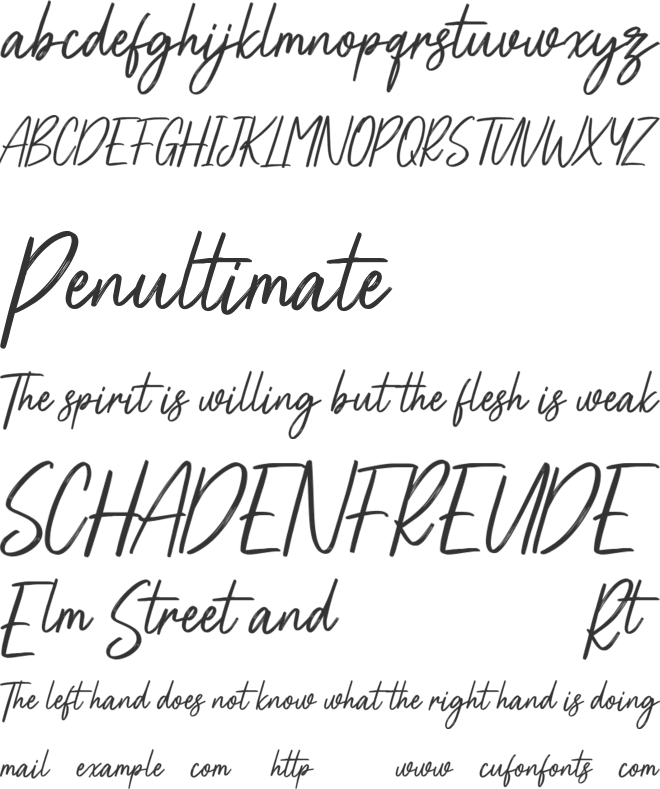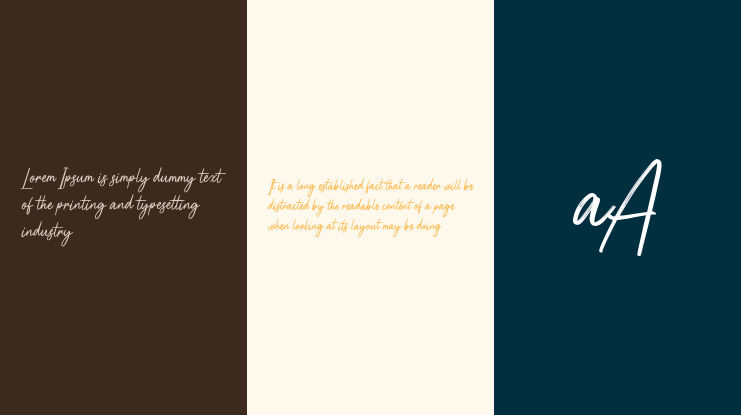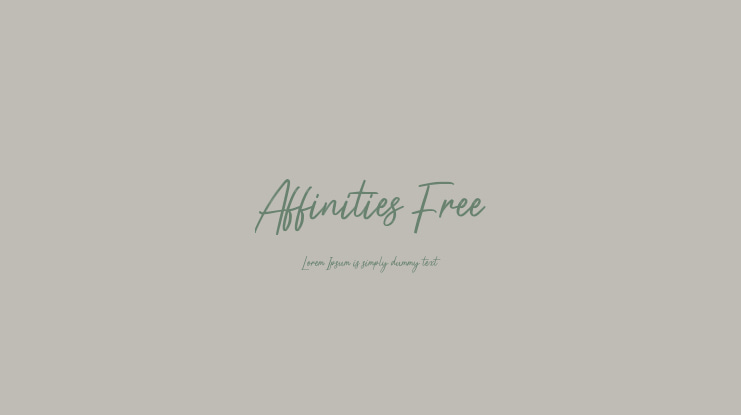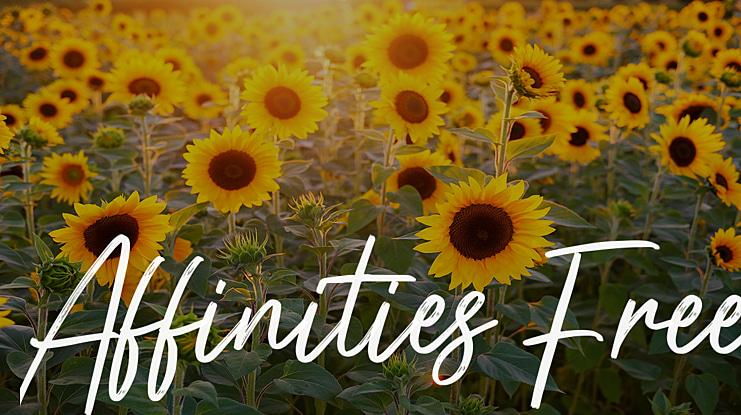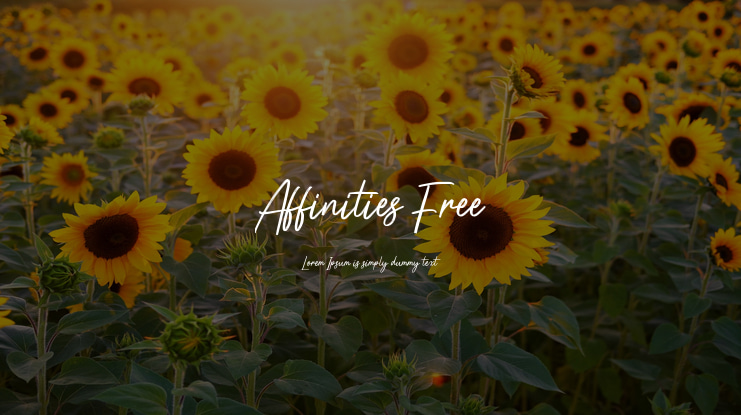
Affinities Free Font
This is a bold connected script font inspired by the spirit of adventure and outdoor activities. It has Opentype features ligatures of character and swashes, To give you an extra creative work. Affinities font support multilingual more than 100+ language. This font is good for logo design, Social media, Movie Titles, Books Titles, a short text even a long text letter and good for your secondary text font with sans or serif. Make a stunning work with Affinities font.